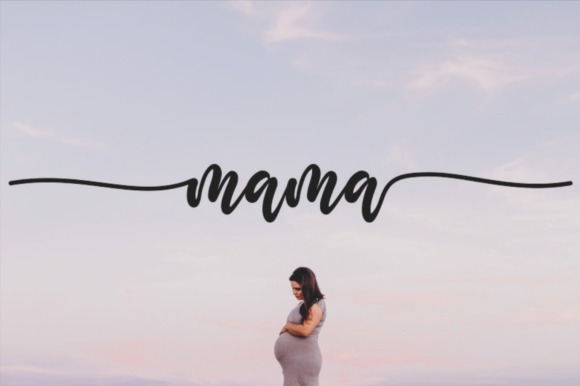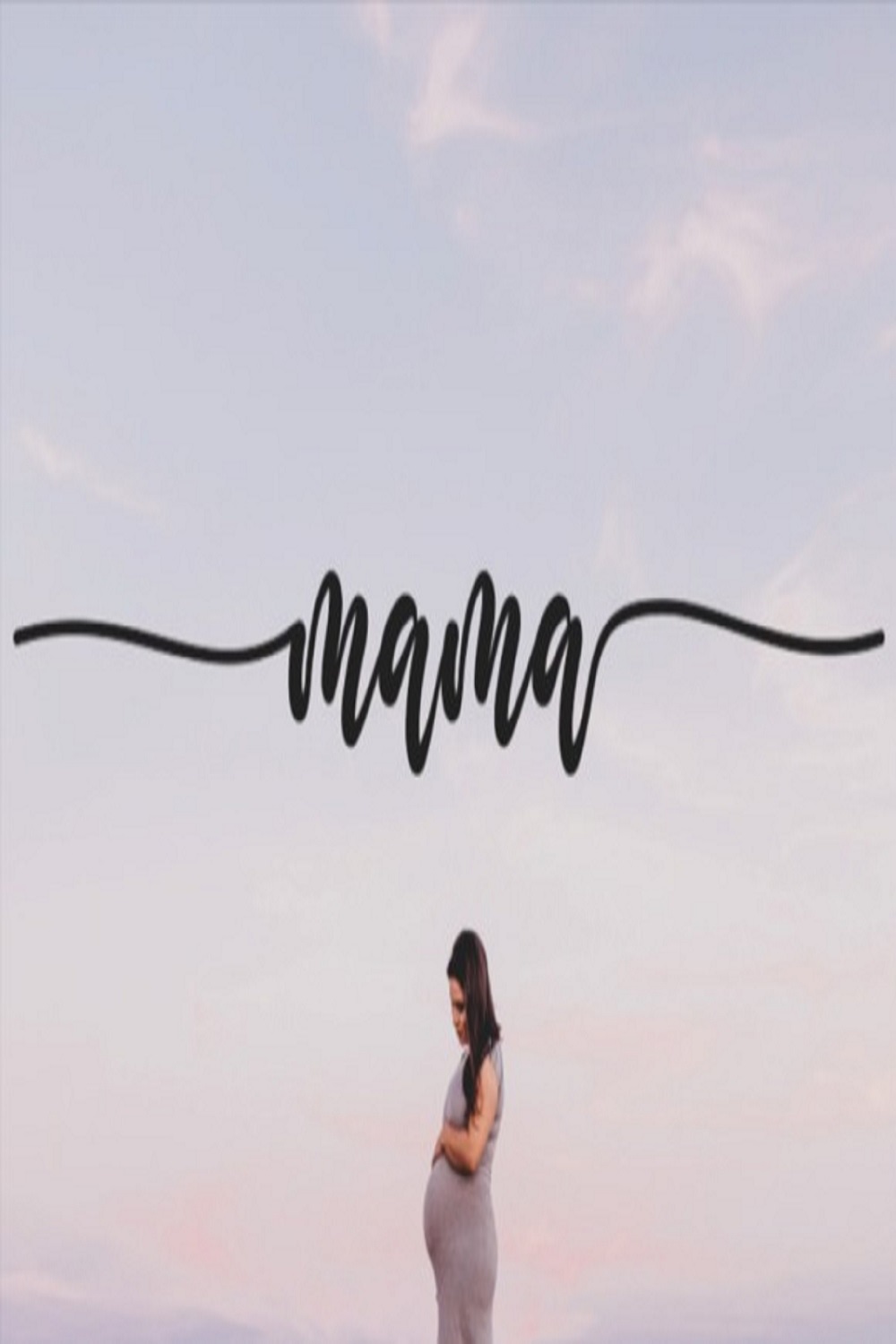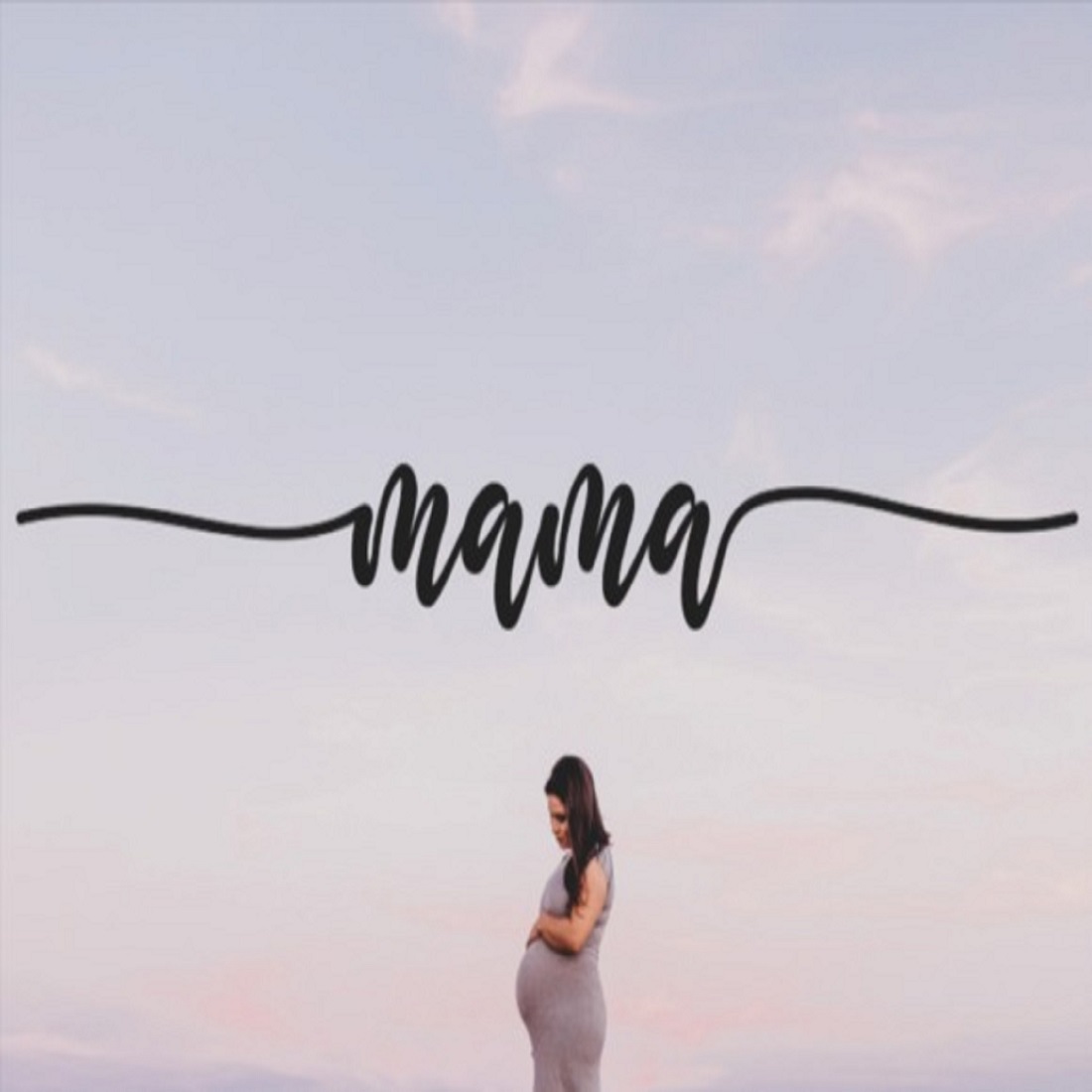
Mama feels incredibly elegant and flowing. It looks stunning on wedding invitations, thank you cards, quotes, greeting cards, logos, business cards and every other design which needs a handwritten touch. It features a varying baseline, smooth lines, gorgeous glyphs and stunning alternates.